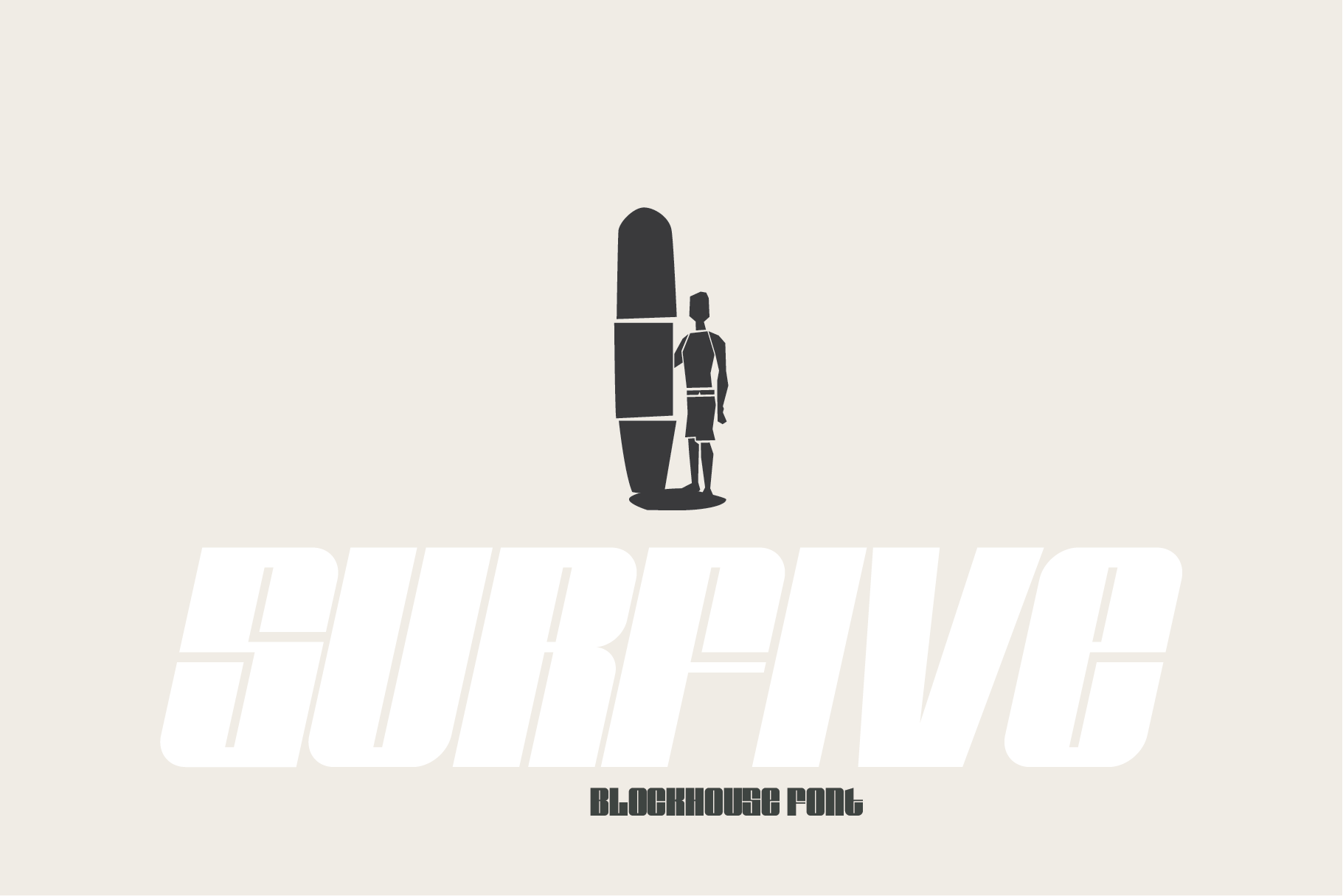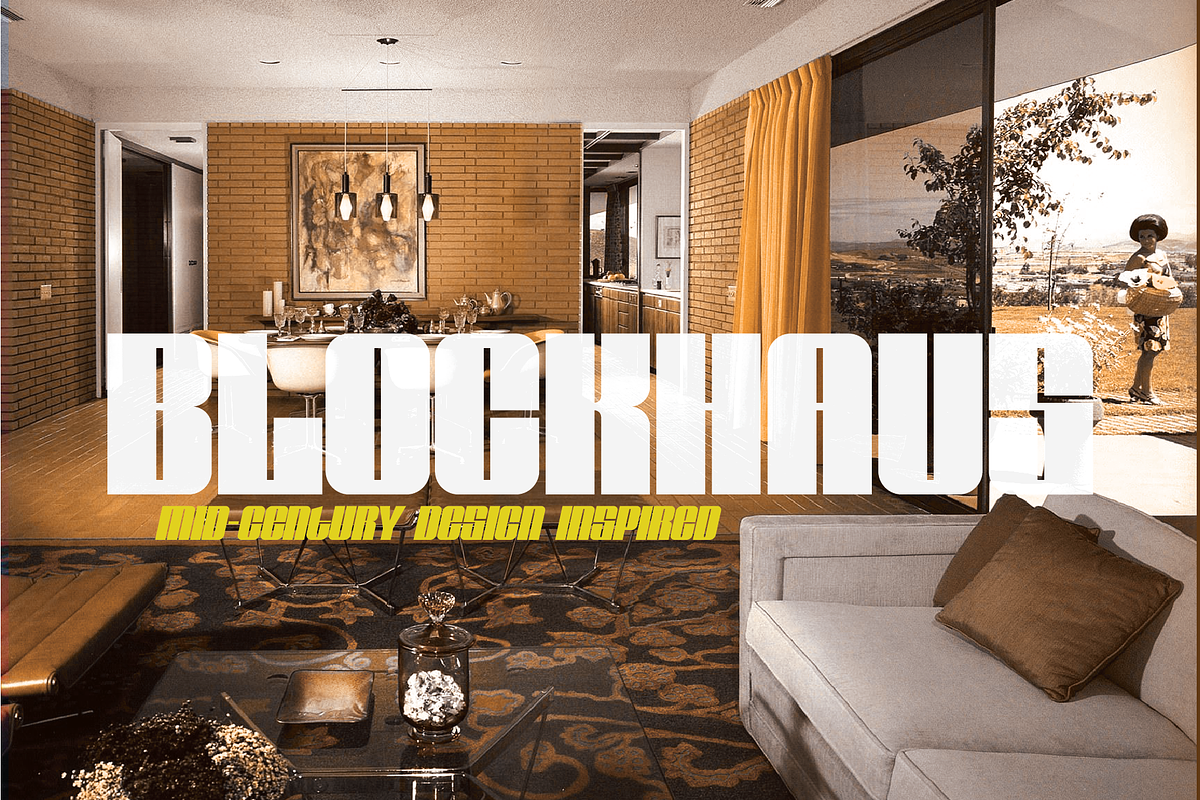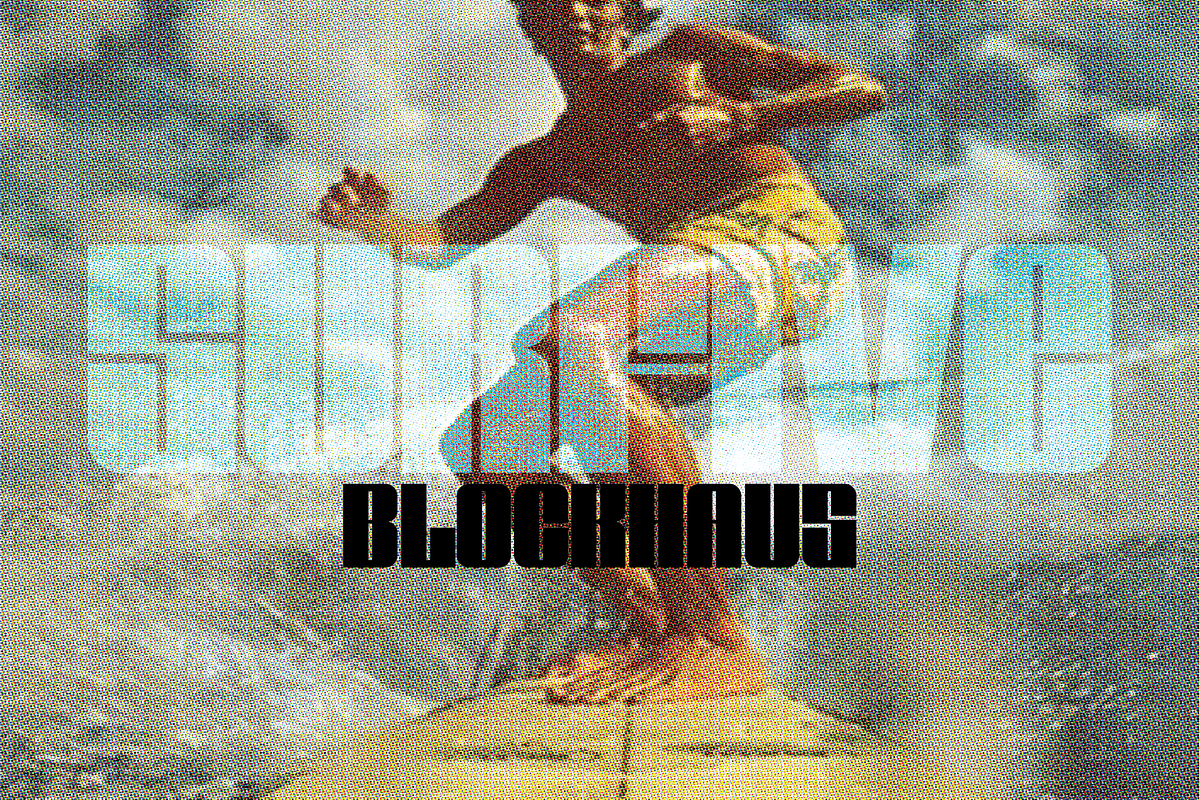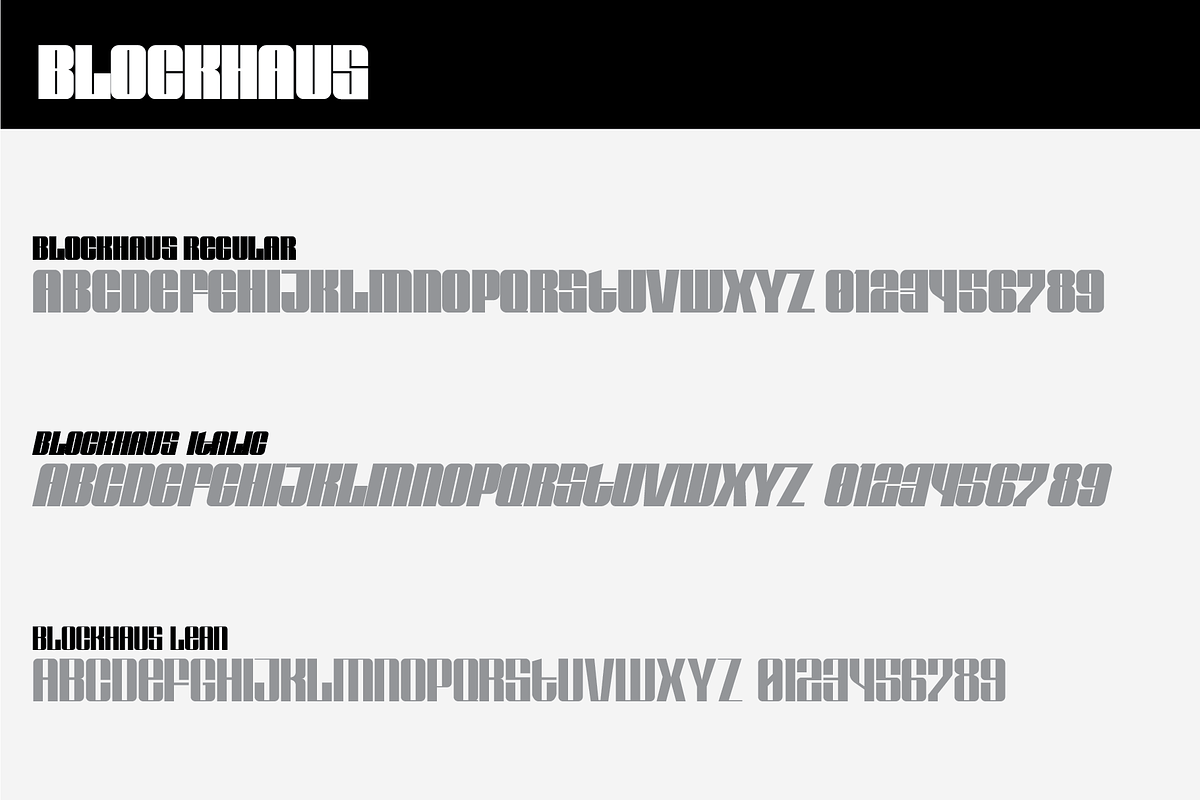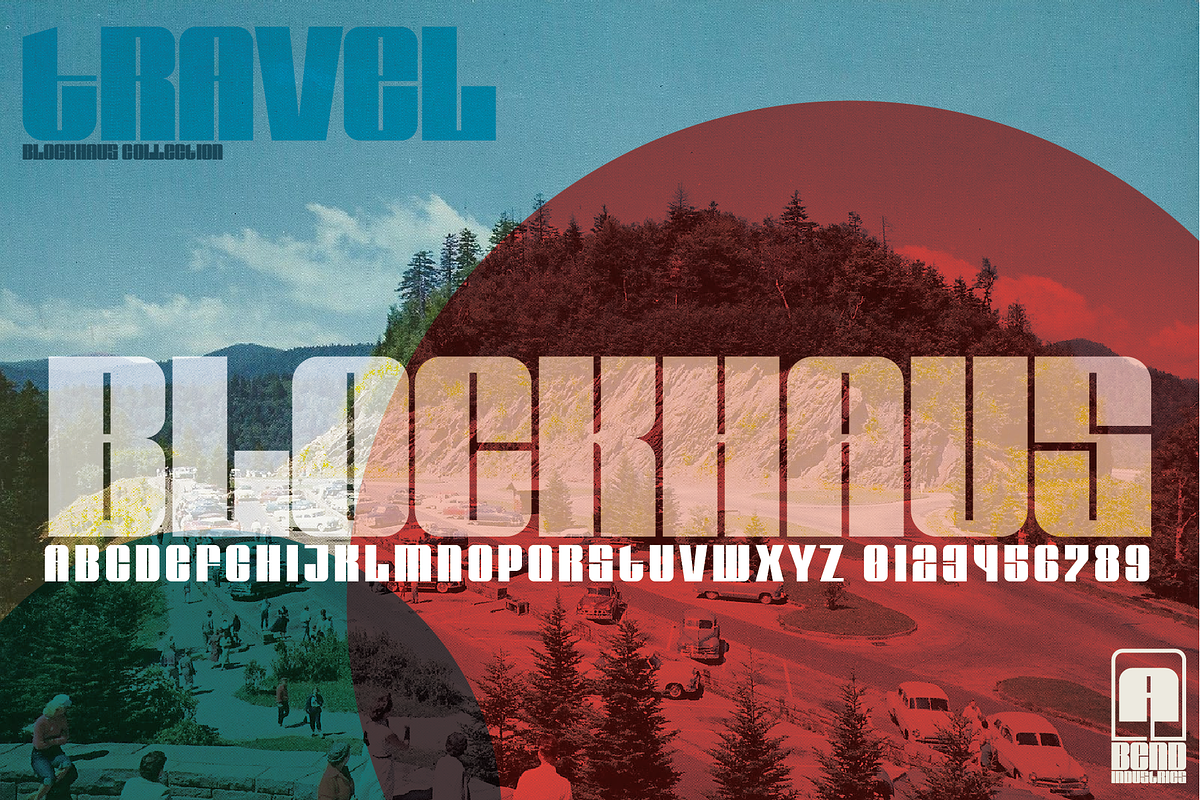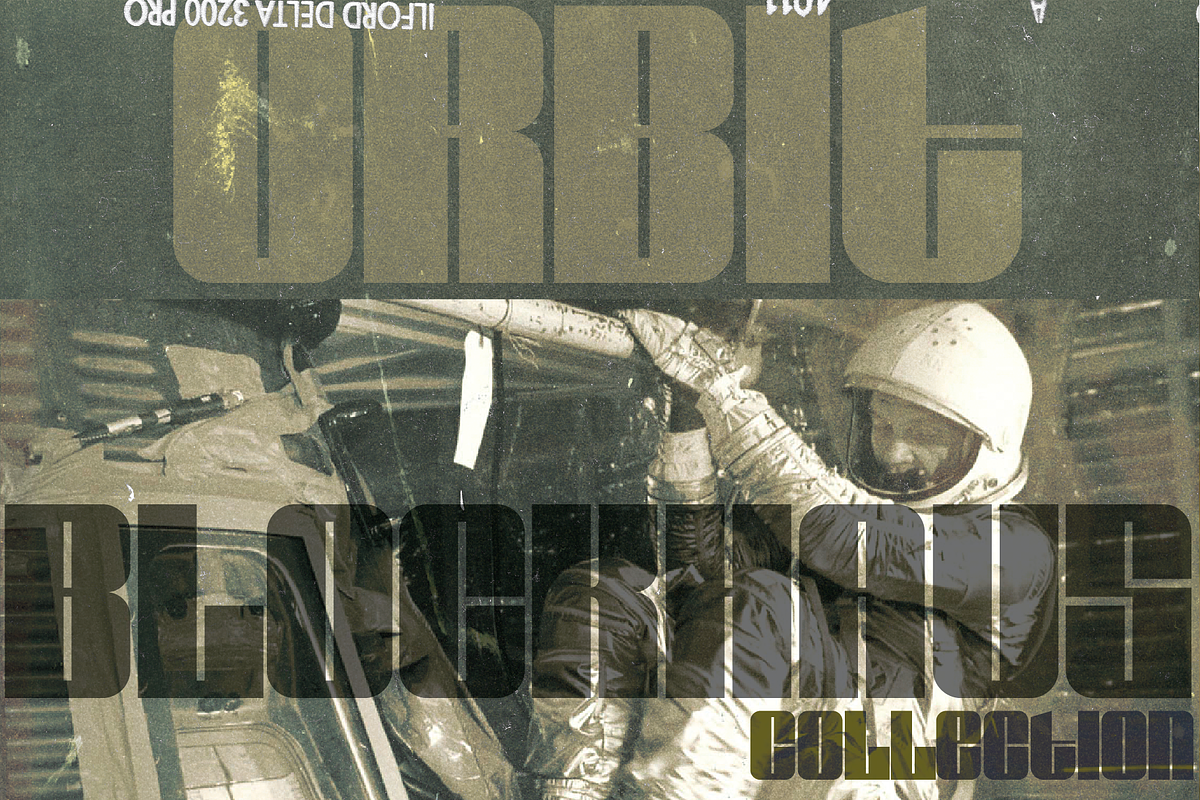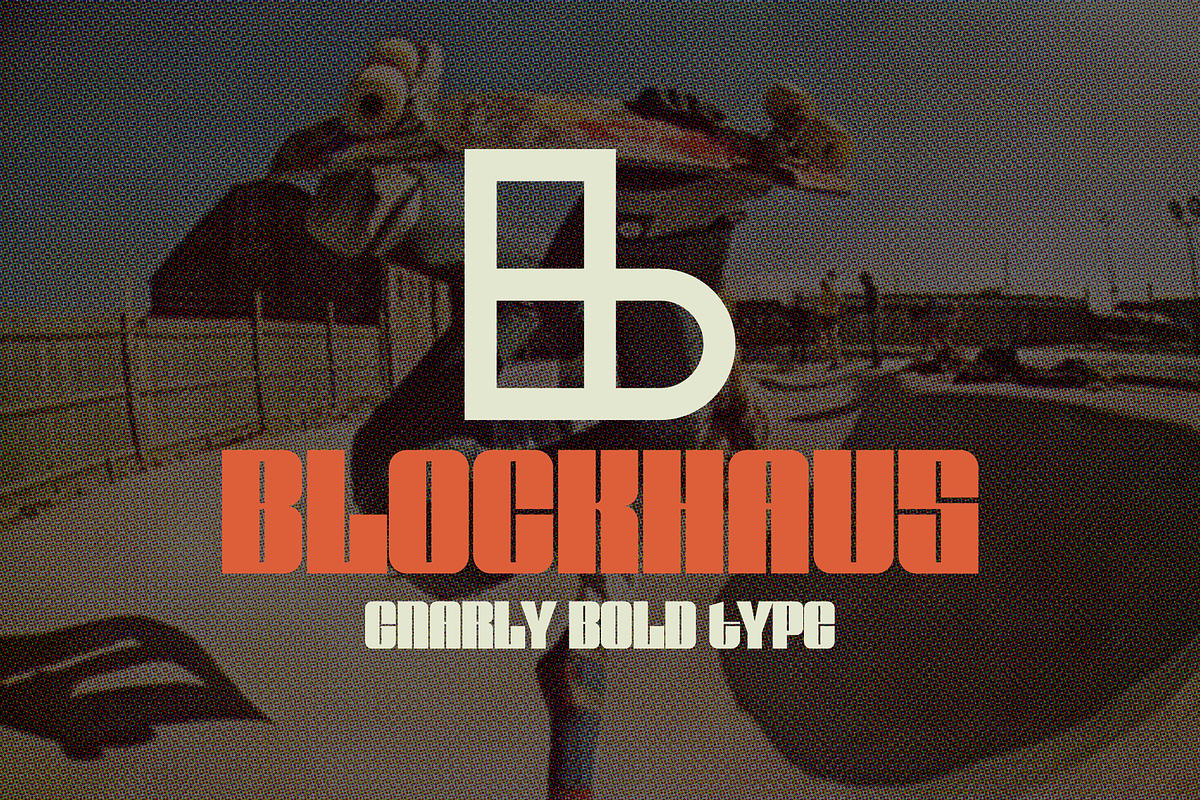
Blockhaus | A Bold Display Font
A bold sans-serif font that is perfect for any project that needs strong, bold, assertive type for extra pop on your next project. This type is inspired by the clean lines and geometric shapes of the mid-century modern movement. This font comes in RTeguilar, Lean, and Italic. Enjoy